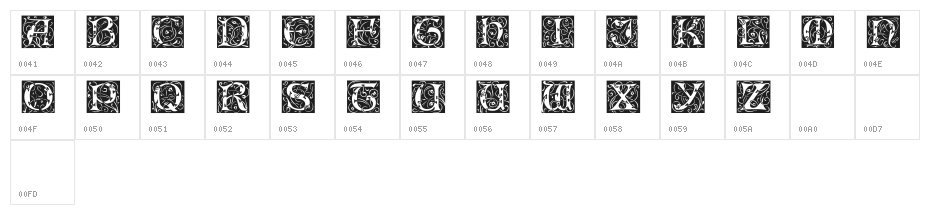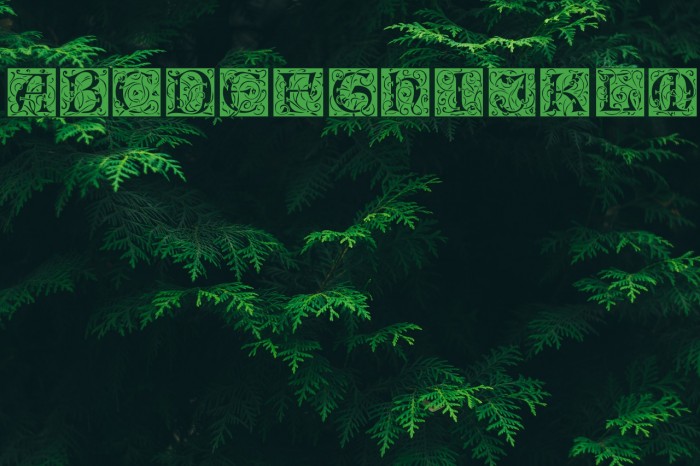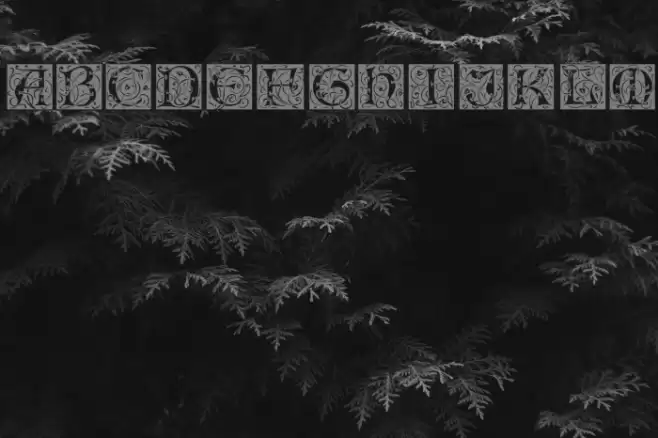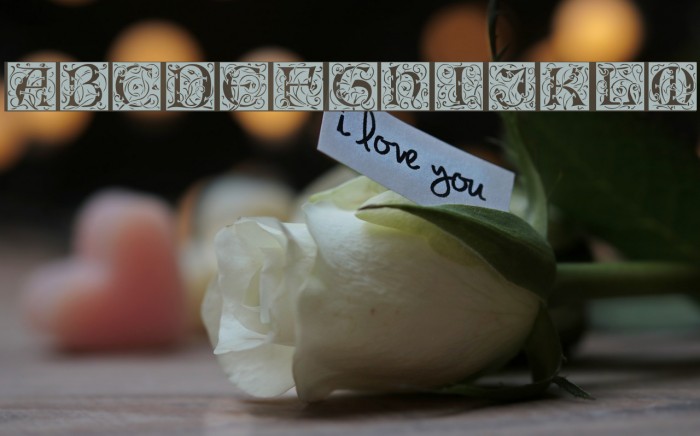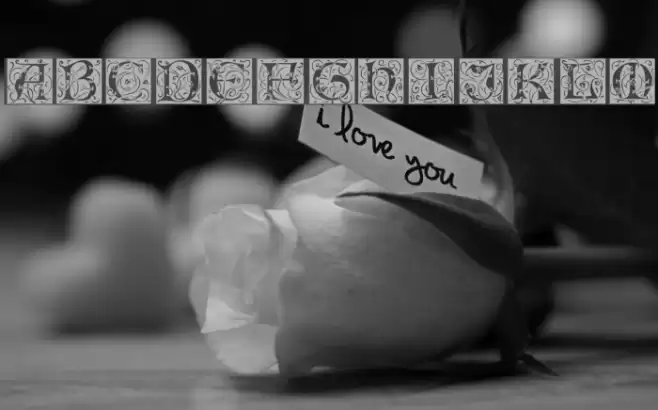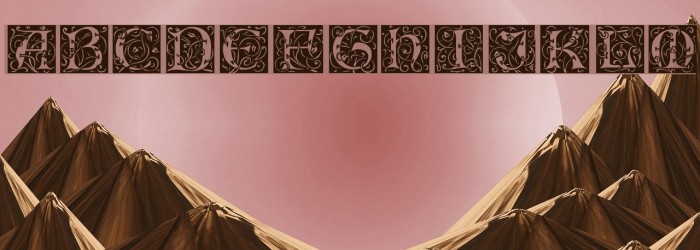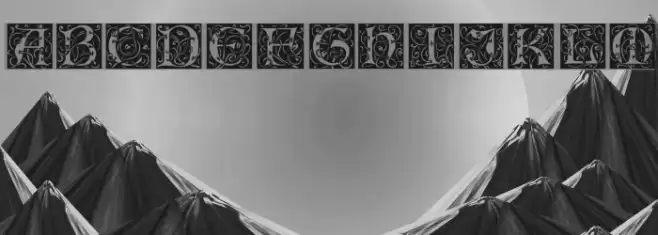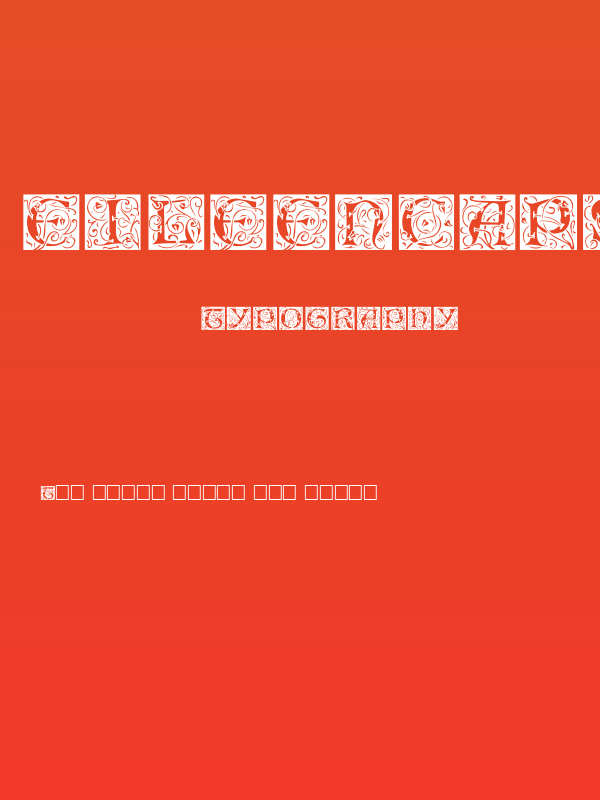
EileenCaps Font
EileenCaps Description
This font features an ornate and decorative style, with each letter encapsulated in a square frame filled with intricate floral and vine motifs. The uppercase letters are the primary focus, showcasing a high level of detail and artistry. The design is reminiscent of illuminated manuscripts, offering a vintage and elegant aesthetic. The absence of lowercase letters and numbers suggests a specialized use, likely for decorative purposes. The intricate patterns within each letter create a sense of luxury and sophistication, making it ideal for projects that require a touch of classic elegance.
| Proposed Projects | Ideal for wedding invitations, luxury branding, decorative headings, and artistic projects requiring a vintage touch. |